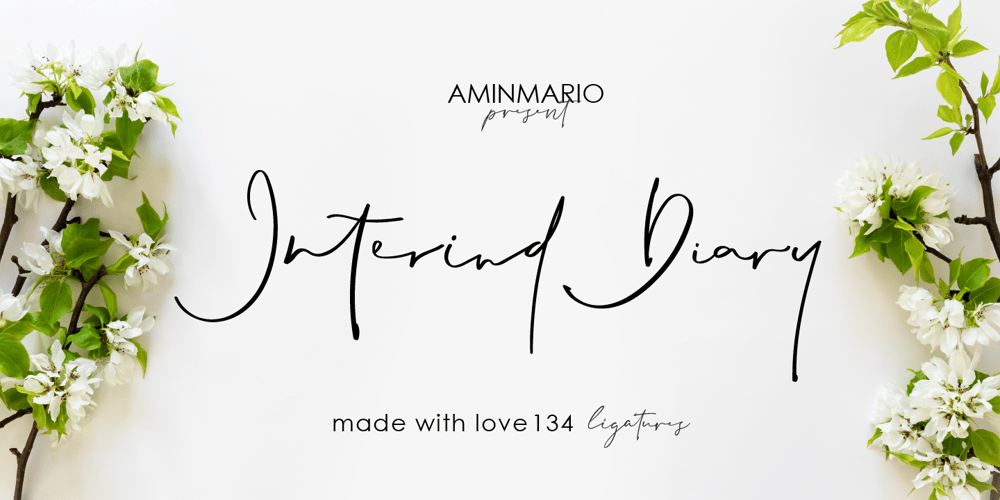
Interind Diary Font Family was designed by Amin Maryono and published by Aminmario Studio. Interind Diary contains 2 styles and family package options. IntroducingThe new “Interind Diary” script font. A fashionable and super-chilled new handwriting font script with sexy stylish.Interind Diary font was created to look as close to a natural handwritten script as possible by including over 134 ligatures, and lowercase alternates.Comes with two styles of Regular and Italic. Mix and match lowercase regular with several lowercase alternatives to get your new ligature. Perfect for any awesome projects that need hand writing taste.With built in Opentype features, this script comes to life as if you were writing it yourself.It’s highly recommended to use it in opentype capable software – there are plenty out there nowadays as technology catches up with design … Other than Photoshop, Illustrator and Indesign, many standard simple programs now come with Opentype capabilities – even the most basic ones such as Apple’s Text Edit, Pages, Keynote, iBooks Author, etc. Even Word has found ways to incorporate it.Thanks for checking out this font.I hope you enjoy it!AminMario